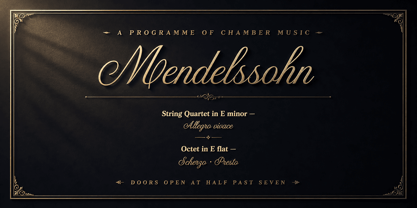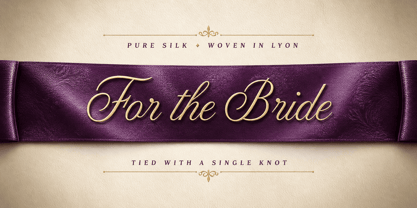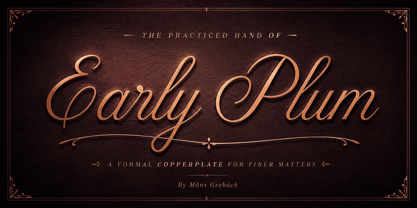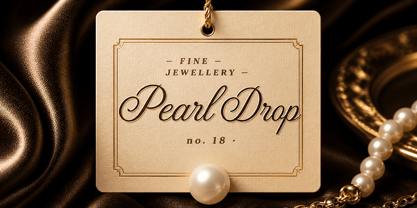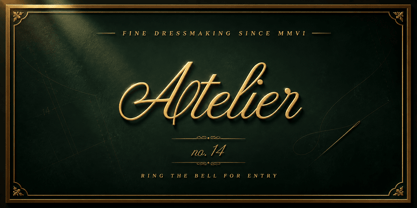
Early Plum
by Mans Greback
The Early Plum Font Family was designed by Måns Grebäck and published by Mans Greback. Early Plum contains 4 styles and family package options. More about this family
Early Plum is a formal copperplate-leaning italic script with a steady slant and unbroken connections.
The hairlines and weighted downstrokes alternate without exaggeration, and the letters lean at a consistent angle so a word reads in a single pass. The capitals carry pronounced flourishes that loop back through the baseline; the lowercase keeps a tighter, more even rhythm so the showier caps have somewhere to land. It feels less like contemporary calligraphy and more like the steady hand of an engraver working from an old plate.
It is the kind of lettering you can picture engraved across the silver lid of a powder compact, or written on the menu card at a long, slow Sunday lunch.
The font is built with advanced functionality and guaranteed top-notch quality, containing stylistic and contextual alternates, ligatures and more automatic and manual features; all to give you full control and customizability.
It has extensive lingual support, covering all Latin-based languages, from North Europa to South Africa, from America to South-East Asia. It contains all characters and symbols you'll ever need, including all punctuation and numbers.